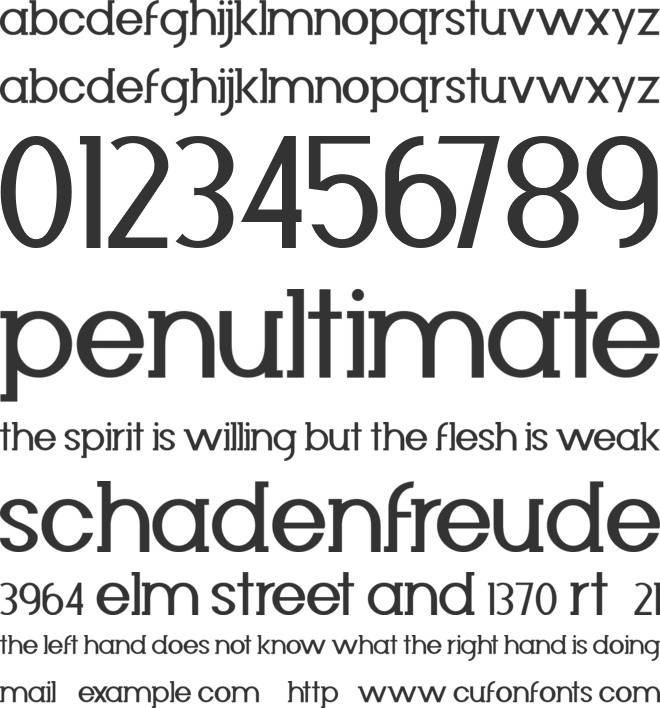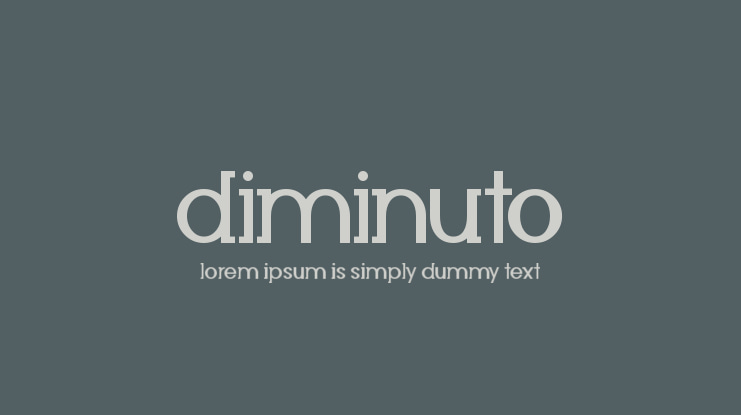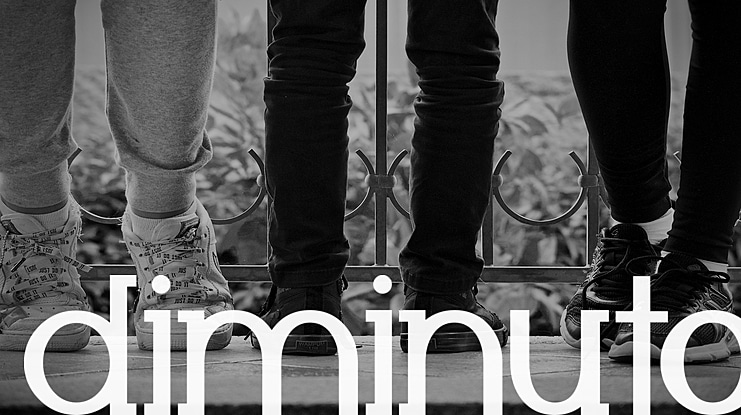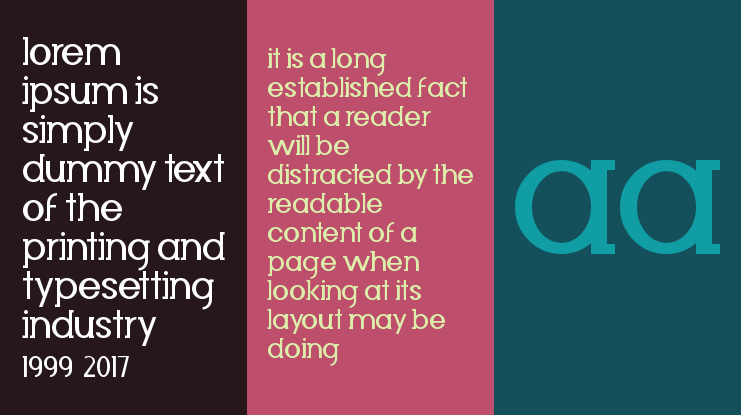
Diminuto Font
This font, believe it or not, I have been working on and refining for quite some time. I have already used it for some pretty sweet logo mockups and such.
It's a slightly unique and quirky serif font. It is a lower case letter set which also includes a number set. I am using it as a reference for a new sans serif font as well, which is looking to be incredibly sexy.